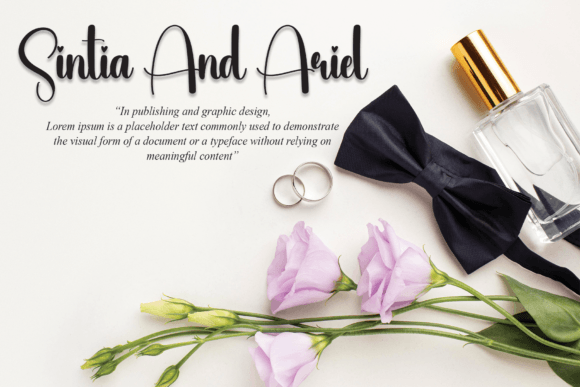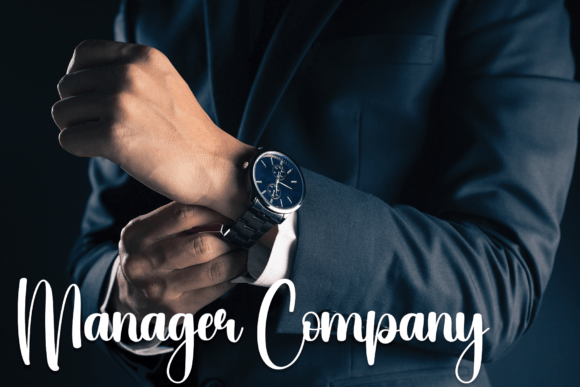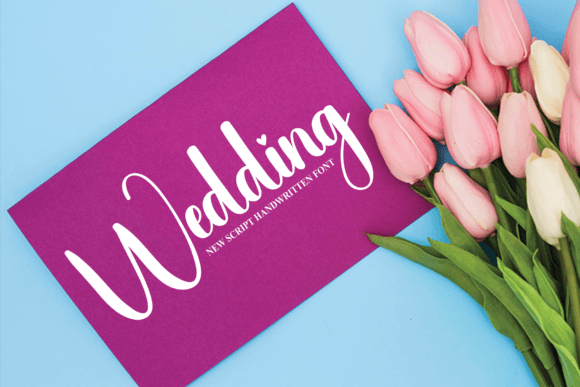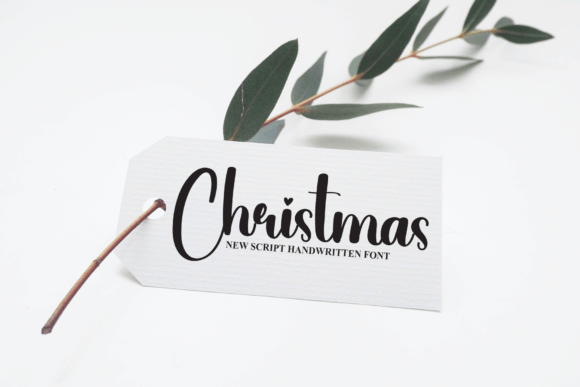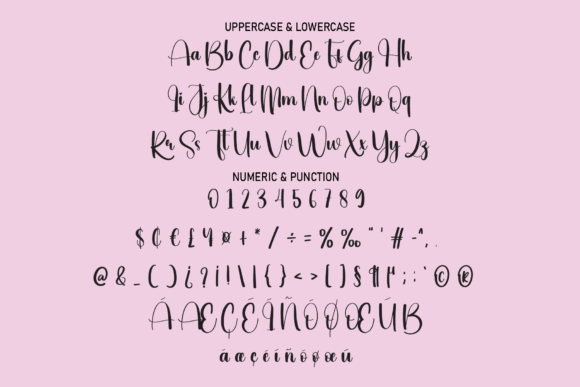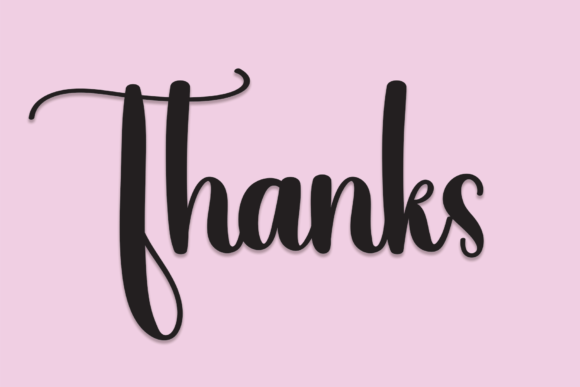
Introduction to Ruddy Face Font
Remember that moment when you stumbled upon the perfect font for your creative project? The one that made your design pop and your heart skip a beat? For designers, finding the right font can be a game-changer, and today we’re excited to introduce you to a hidden gem: the Ruddy Face Font.
This cool and casual handwritten font is more than just a pretty face – it’s a versatile design resource that can elevate your crafts, digital designs, presentations, and even greeting cards. With its high-quality texture and transparent background, Ruddy Face Font is perfect for adding a personal touch to your projects. Whether you’re a seasoned designer or just starting out, this free download is sure to become your go-to font for any creative endeavor.
Ruddy Face Font
- Unique, high-quality design for creative projects and designs, offering a distinctive touch to any layout.
- Features a transparent background, making it easy to layer over other design elements and achieve a clean, modern look.
- Perfect for designers and artists working on creative projects, including graphic design, digital art, and typography-based art.
- Designed to be highly versatile, allowing users to experiment with different font styles and combinations to suit their creative vision.
Honest Review: Ruddy Face Font
I recently had the opportunity to work with the Ruddy Face Font, and I must say it’s been a pleasant experience. As a designer, I’m always on the lookout for high-quality design resources to elevate my creative projects.
What works well with the Ruddy Face Font is its versatility and uniqueness. The font’s distinctive design and quirky feel make it perfect for projects that require a bit of personality. I also appreciate that it’s available for free download, which is a major plus for designers on a budget.
- ✨ Unique and distinctive design
- ✨ Perfect for creative projects that require a personal touch
However, there are a few limitations to consider. The font’s transparent background can be a bit tricky to work with, especially when trying to use it with complex designs. Additionally, the font may not be suitable for large-scale commercial projects due to its free nature.
Overall, I’m impressed with the Ruddy Face Font and would definitely recommend it to designers looking for a unique and high-quality design resource for their creative projects.
One thing to note is that the font’s limitations are more of a minor inconvenience than a major drawback. With a bit of creative problem-solving, I was able to work around the transparent background issue and achieve the desired results.
⚠️ Transparent background can be tricky to work with
Tips for Getting the Most Out of Ruddy Face Font
For the best results, use Ruddy Face Font on a design project with a high-quality image or background. You can also experiment with different font sizes and styles to create a unique look. Don’t forget to save your design with a transparent background to ensure a seamless integration.
Ruddy Face Font is ideal for creative projects such as logos, posters, and social media graphics. You can also use it for branding materials, such as business cards and letterheads. With its unique design and high-quality texture, Ruddy Face Font is a great design resource for any project.